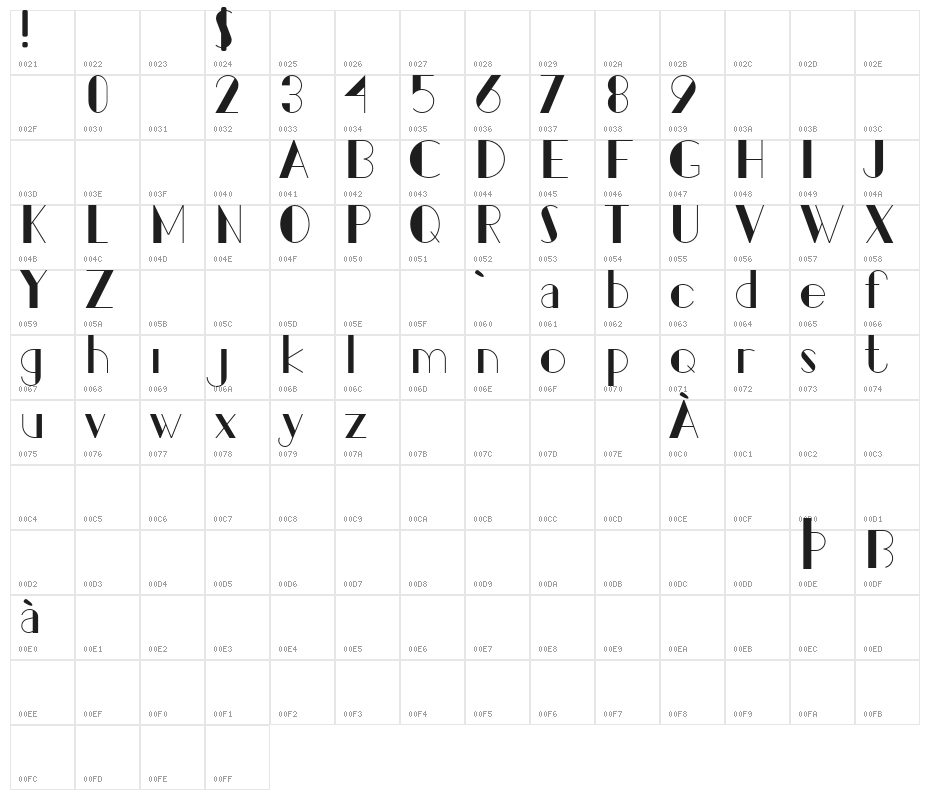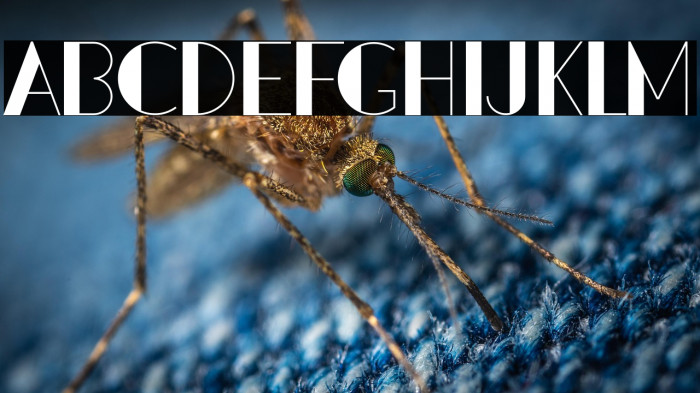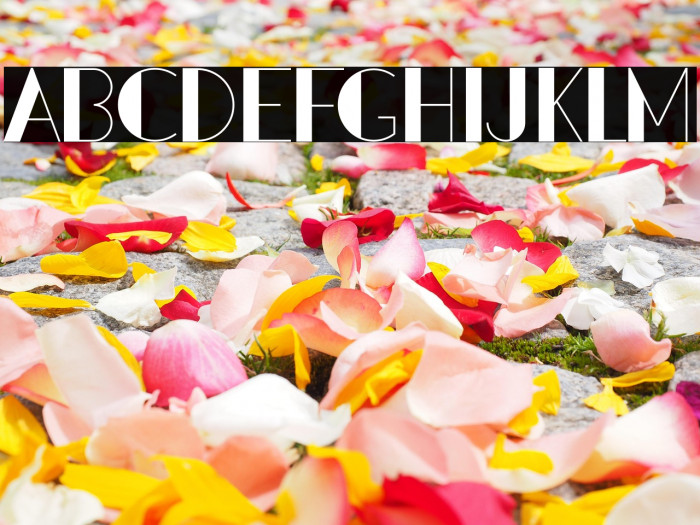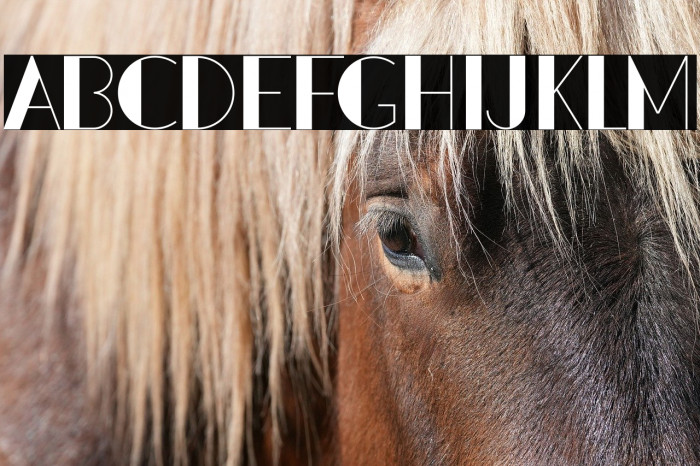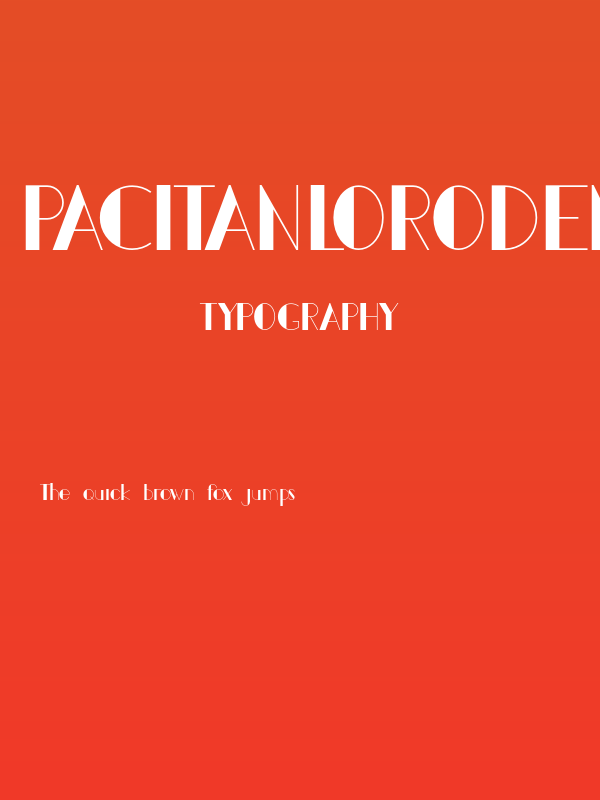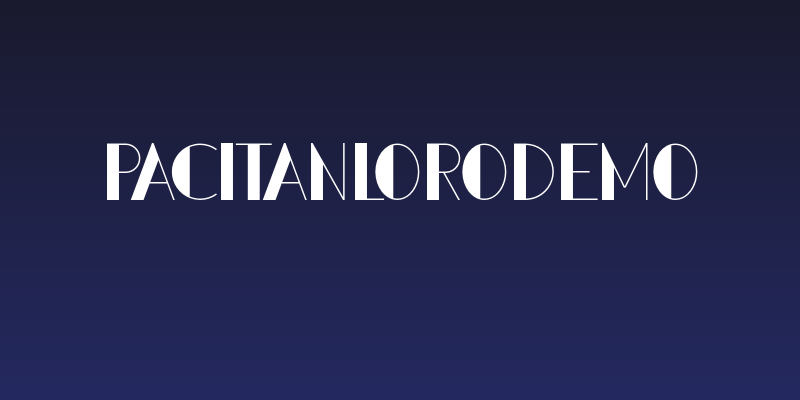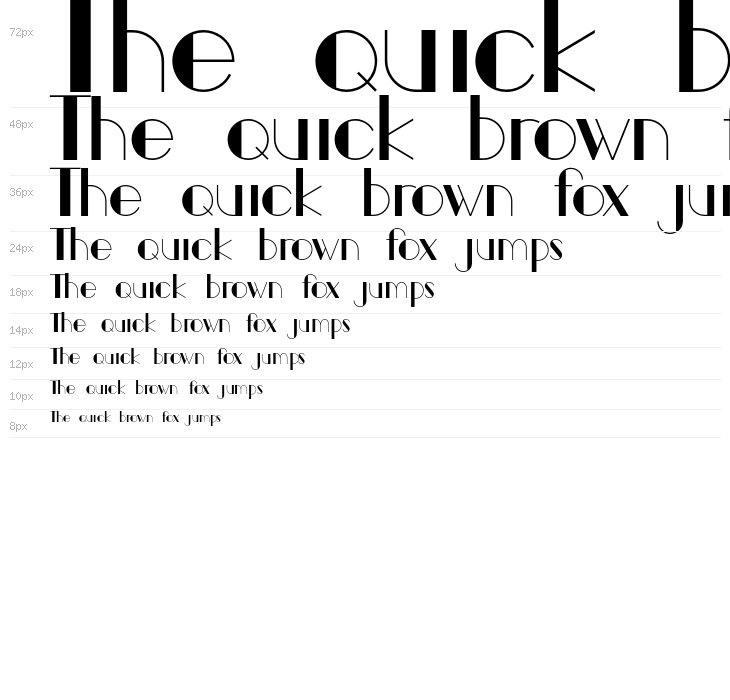
PacitanLoroDemo Font
PacitanLoroDemo Description
This font features a striking contrast between thick and thin strokes, creating a dynamic and modern aesthetic. The uppercase letters are bold and geometric, with sharp angles and clean lines, while the lowercase letters maintain a more delicate and refined appearance. The numerals are uniquely styled, with a mix of curves and straight edges that add to the font's distinctive look. Special characters are designed with the same attention to detail, ensuring consistency across all glyphs. This font's overall style is both contemporary and elegant, making it suitable for a variety of design applications.